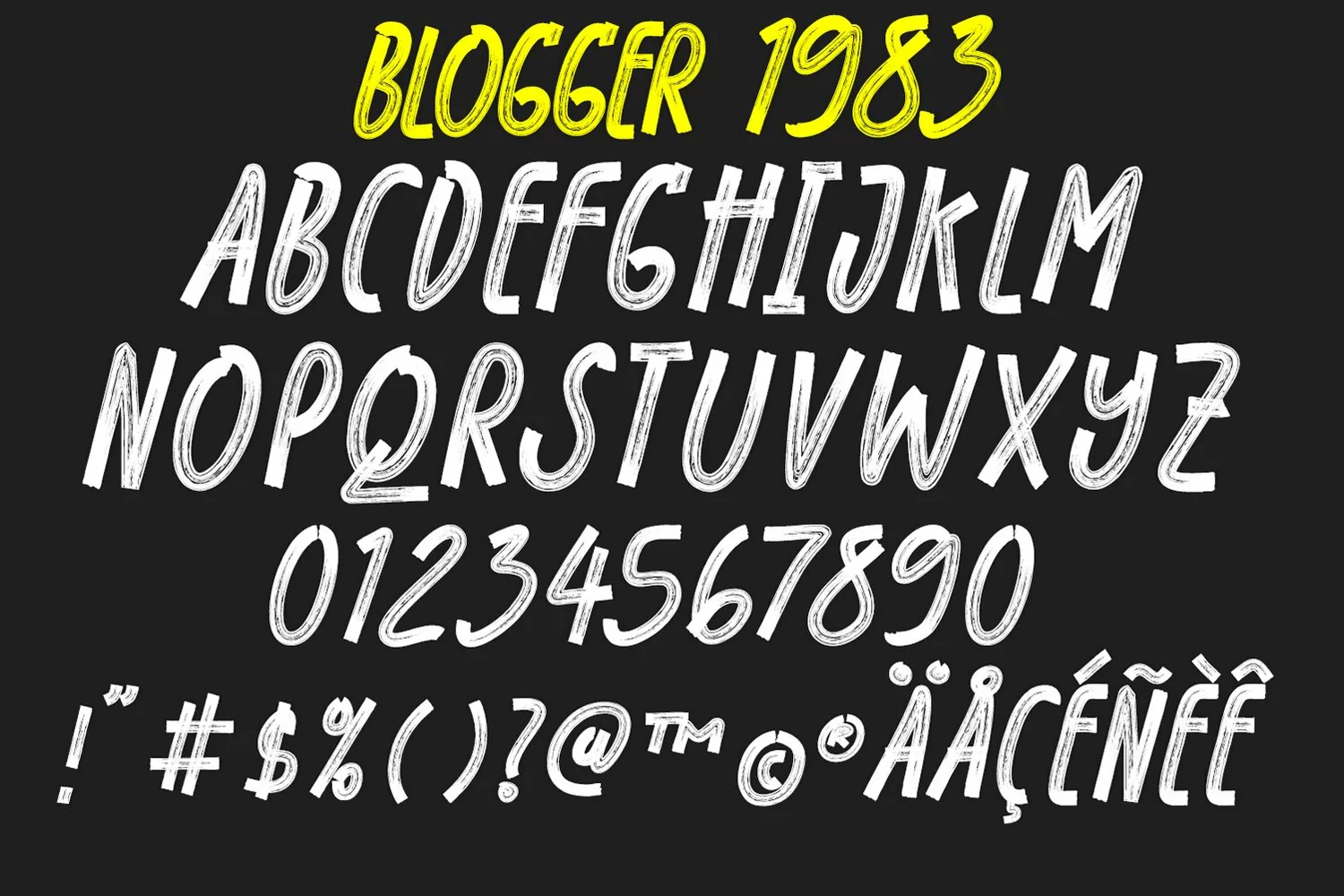
BLOGGER 1983 BRUSH FONT is a supercharged brush font style, street-wise brush font bursting with energy. With extra attention to quick strokes and sharp details. This font is very suitable for a variety of places such as clothing, poster, tittle books, stationery designs, quotes, branding, logos, invitations, greeting cards, t-shirts, packaging designs and more.